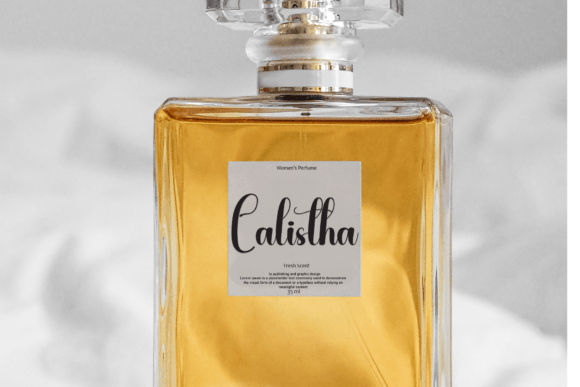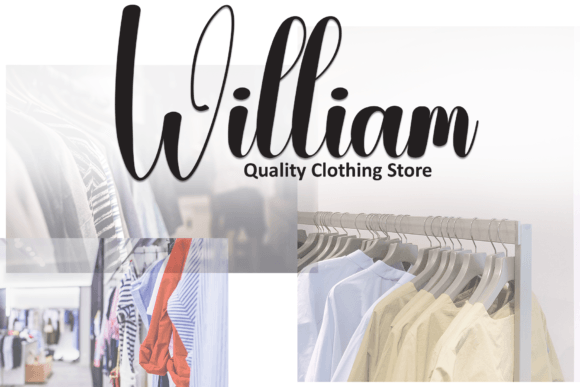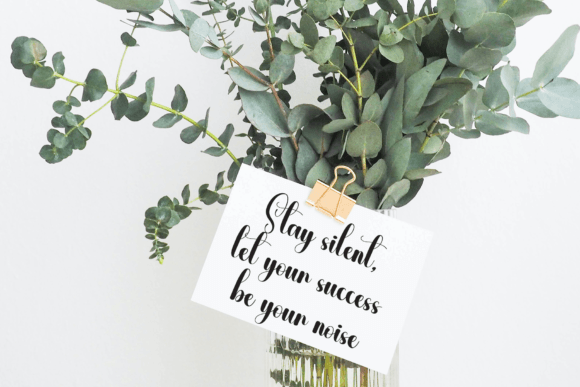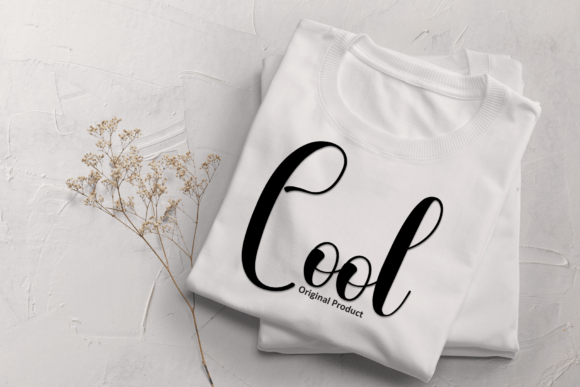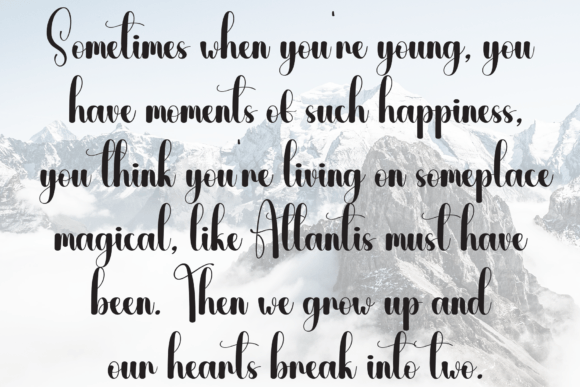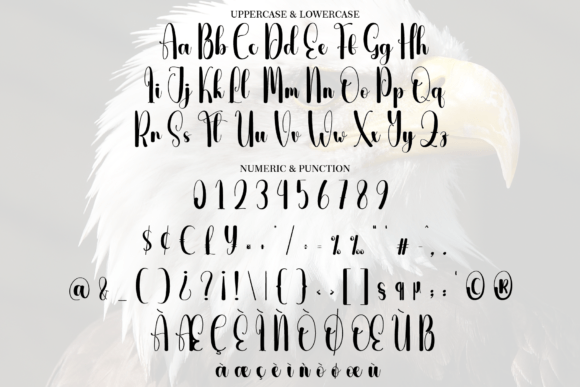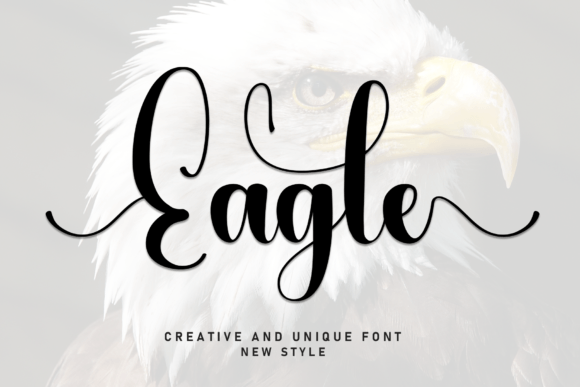
Eagle Font: The Sweet and Friendly Handwritten Font for Your Creative Projects
Are you looking for a font that can add a lovely touch to your designs? Look no further than Eagle Font! Eagle is a sweet and friendly handwritten font that is perfect for creating beautiful wedding invitations, cards, and other designs that require a personal and casual touch. In this article, we’ll explore the features and benefits of Eagle Font, and show you how to use it to take your designs to the next level.
What is Eagle Font?
Eagle Font is a handwritten font that is designed to be fresh and casual. It’s perfect for designers and crafters who want to add a personal touch to their projects. The font is characterized by its smooth and flowing lines, which give it a friendly and approachable feel. Whether you’re creating wedding invitations, greeting cards, or other designs, Eagle Font is sure to make your project stand out.
Features of Eagle Font
Eagle Font has several features that make it an ideal choice for designers and crafters. Some of its key features include:
- Handwritten style: Eagle Font has a beautiful handwritten style that gives it a personal and unique touch.
- Fresh and casual: The font has a fresh and casual feel that makes it perfect for designs that require a relaxed and friendly tone.
- Easy to read: Eagle Font is easy to read, even at small sizes, making it perfect for body text and captions.
- Versatile: The font is versatile and can be used for a wide range of designs, from wedding invitations to greeting cards and more.
Benefits of Using Eagle Font
There are several benefits to using Eagle Font in your designs. Some of the benefits include:
- Adds a personal touch: Eagle Font adds a personal touch to your designs, making them more unique and special.
- Creates a friendly tone: The font creates a friendly and approachable tone that is perfect for designs that require a casual and relaxed feel.
Design Ideas Using Eagle Font
Eagle Font is a versatile font that can be used for a wide range of designs. Here are some design ideas to get you started:
- Wedding invitations: Use Eagle Font to create beautiful and unique wedding invitations that set the tone for the big day.
- Greeting cards: Use the font to create personalized greeting cards for birthdays, holidays, and other special occasions.
- Social media graphics: Use Eagle Font to create social media graphics that are friendly and approachable.
- Blog posts: Use the font to create blog posts that are easy to read and visually appealing.
Eagle Font is a sweet and friendly handwritten font that is perfect for designers and crafters who want to add a personal touch to their projects. With its fresh and casual feel, Eagle Font is ideal for creating beautiful wedding invitations, cards, and other designs that require a lovely touch. Whether you’re a professional designer or a DIY crafter, Eagle Font is a great choice for your next project.